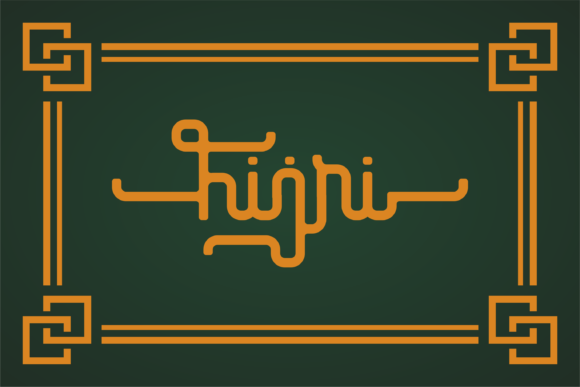
Presenting Hijri Font - A Masterpiece of Arabic Monoline Script
Immerse yourself in the captivating allure of Hijri Font, a monoline script font inspired by the rich heritage of Arabic calligraphy. Created by Toko Laris Djaja, this font is a true marvel that will transform your designs into stunning works of art. Let the beauty of this font enchant you as you witness the harmonious blend of tradition and modernity.
Step into a world where elegance and creativity dance together, as Hijri Font graces your projects with its intricate swashes. These beautiful flourishes add a touch of magic, making your designs stand out from the ordinary. Whether you're creating greeting cards, invitations, posters, book covers, or social media posts, Hijri Font breathes life into your words, capturing the essence of your message with captivating style.
Unleash your imagination and let Hijri Font ignite your passion for design. It's the perfect font for those seeking a unique and captivating style. From movie posters to captivating logos, Hijri Font adds a touch of cinematic drama and intrigue to any project. Experience the power of typography as you weave your words into a visual symphony, capturing the hearts and minds of your audience.
Don't settle for ordinary fonts that blend into the background. Embrace the artistry of Hijri Font and watch as your designs take center stage. Its versatility knows no bounds, allowing you to explore endless creative possibilities. Discover the beauty of fusion as Hijri Font seamlessly blends the charm of tradition with the vibrancy of modern aesthetics.
With Hijri Font, you hold the key to unlocking a world of enchanting designs. Let the Arabic-inspired swashes dance across your screen, captivating your audience with their elegance and grace. Embark on a creative journey where your imagination knows no limits. Download Hijri Font today and let your designs shine with a brilliance that will leave an everlasting impression.